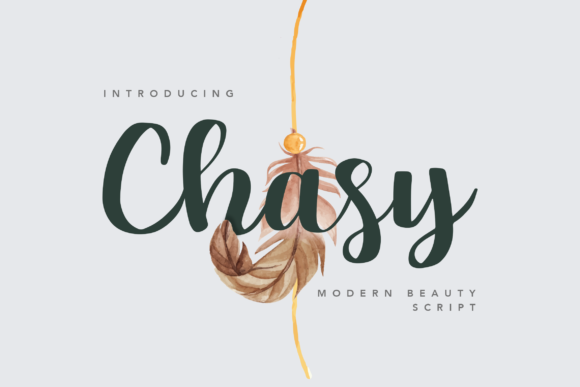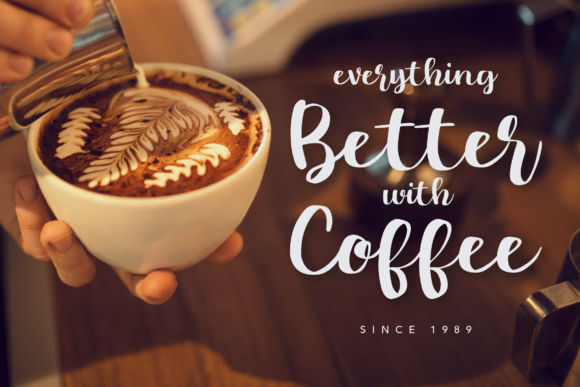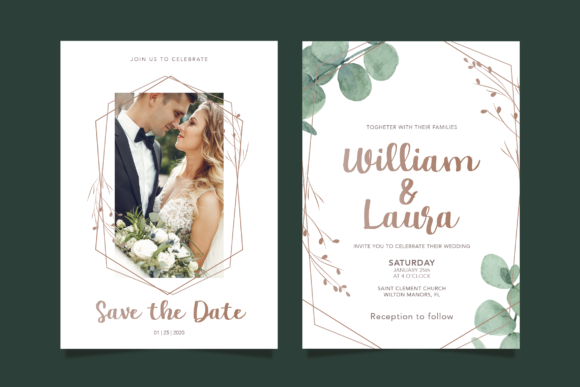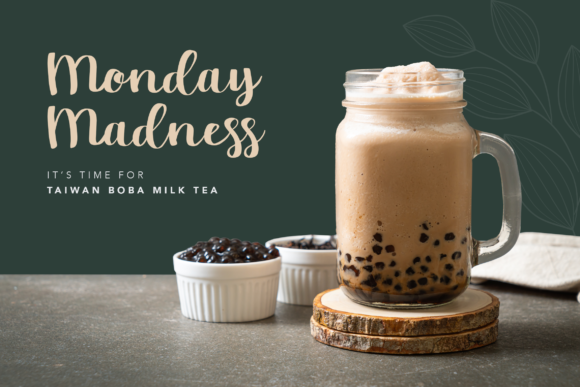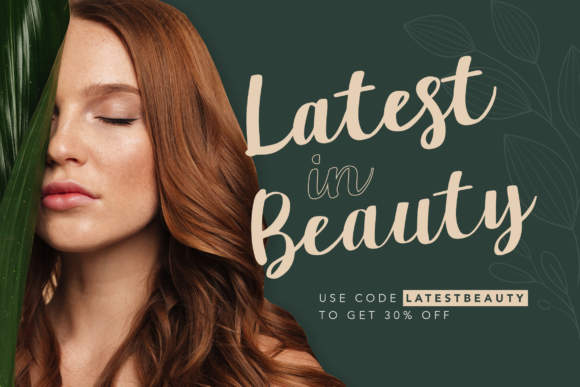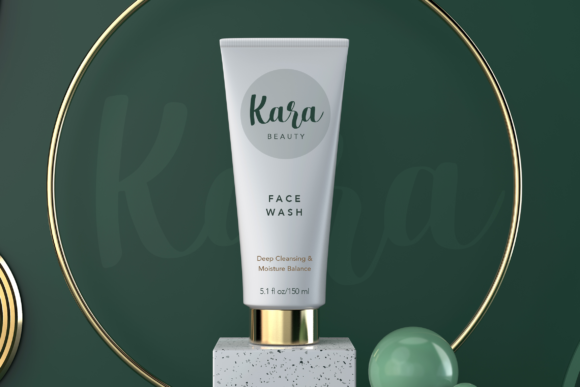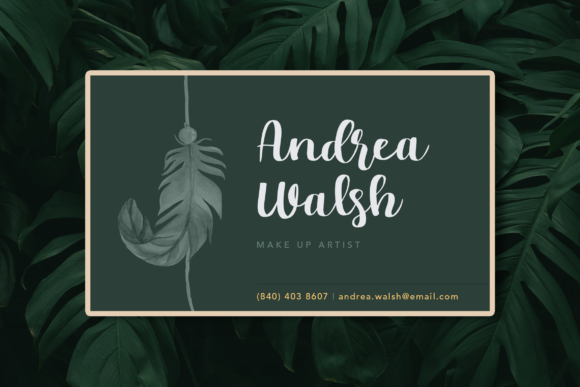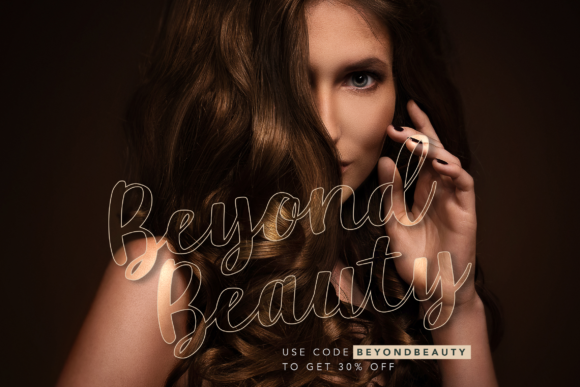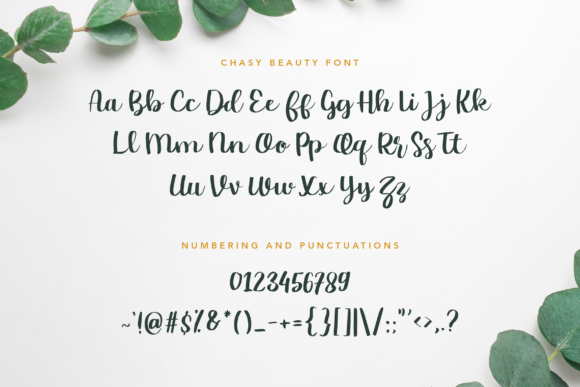
Chasy Font
About Chasy Font
Chasy is a stylish and fancy calligraphic script that will add a personal feel to any design idea. Get inspired by its unique charm!